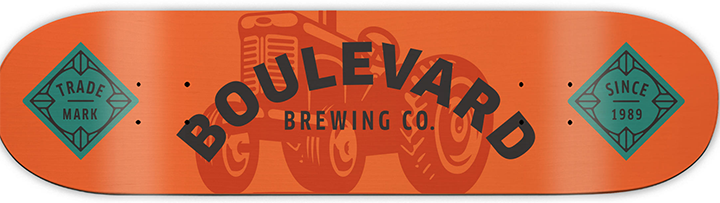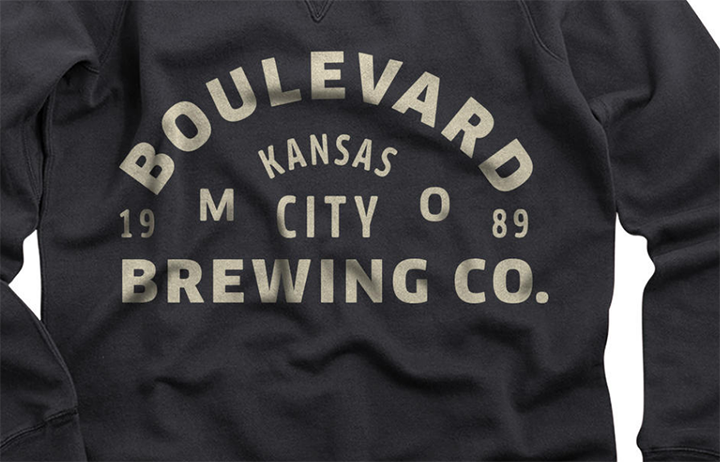
Modern San Serif used in Beer Packaging (Helms Workshop Identity)
Helms Workshop created a beautiful identity. Curious what is the san serif used for the shirt and skateboard.
Looks like a large font family.
Very close to
FF Clan
by Łukasz Dziedzic: